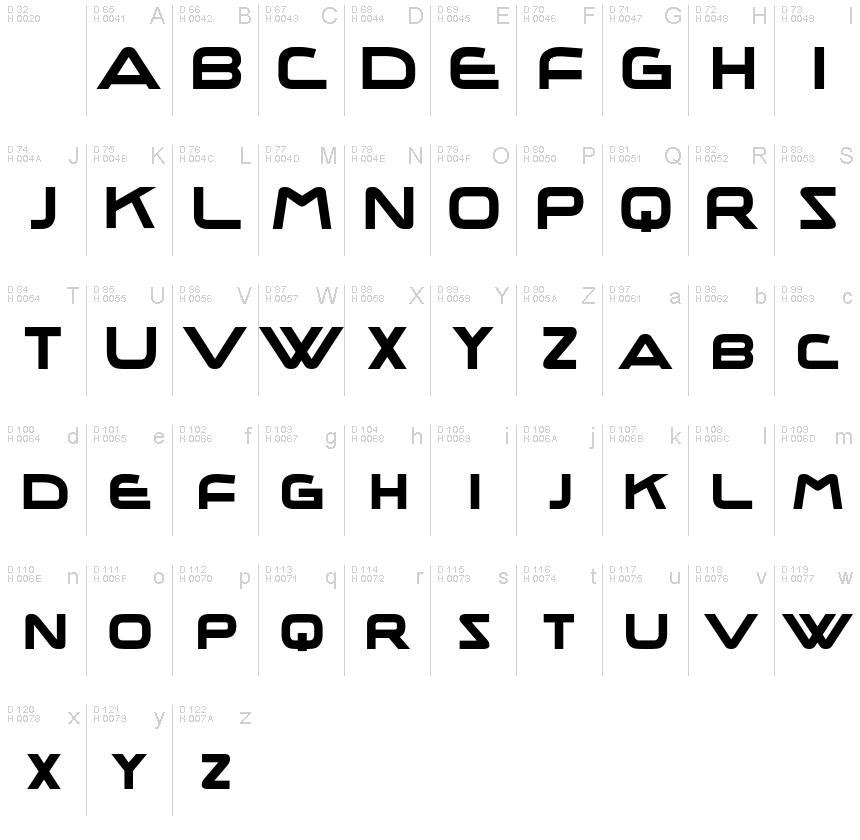
Tron Regular
Tron, crafted by Vladimir Nikolic, is a display font that encapsulates the futuristic essence of its namesake. Its techno style exudes a bold presence with each character boasting an expanded form that demands attention. The font's clean lines and sharp angles combine to create an aesthetic that is both modern and assertive.
This font's commanding appearance makes it an ideal choice for projects that require a touch of science fiction or a digital edge. Whether it's for the titles of video games, movie posters in the sci-fi genre, or tech-themed event invitations, Tron stands out as a go-to typeface for designers looking to make a strong visual impact.